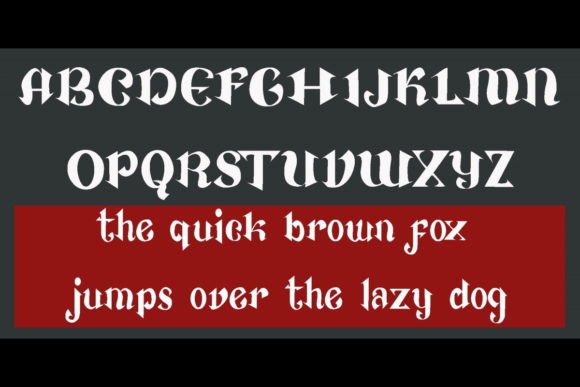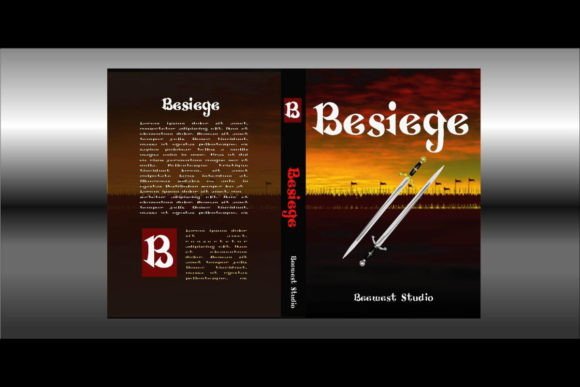
Introduction to Sheringham Font
Have you ever been working on a creative project, only to feel like something’s missing? That’s when I discovered the Sheringham Font – a game-changing design resource that instantly elevates any project to the next level. Whether you’re crafting a bespoke wedding invitation, designing a new brand identity, or simply adding a touch of elegance to a birthday card, this stunning black letter font is sure to impress.
As a designer, you know how crucial it is to have access to high-quality fonts that can help bring your vision to life. And with the Sheringham Font, you can rest assured that you’re getting a premium design resource that’s free to download and versatile enough to suit any creative project. From book cover titles to labels and more, this modern font is the perfect addition to your design arsenal.
With its bold, classic style and transparent background, the Sheringham Font is a valuable asset for any designer looking to add a touch of sophistication to their work. And the best part? It’s available for free download, making it an accessible design resource for creatives of all levels.
- Unique characteristics include elegant and sophisticated letterforms, making it ideal for luxury branding and high-end design.
Honest Review: Sheringham Font
I recently stumbled upon the Sheringham Font while searching for high quality design resources. As a designer, I’m always on the lookout for unique and versatile fonts that can elevate my creative projects. Sheringham Font did not disappoint.
Here are some of the things that work well with the Sheringham Font: ✨
- High-quality design: The font has a beautiful, intricate design that looks great on both screen and print.
- Transparent background: The font has a transparent background, making it easy to use in creative projects with complex backgrounds.
- Unique style: The Sheringham Font has a unique, hand-drawn style that sets it apart from more generic fonts.
While the Sheringham Font is a great resource, there are a few limitations to be aware of: ⚠️
- Limited font styles: The font only comes in a few styles, which may not be enough for designers who need a wide range of options.
- Not suitable for body text: The font is best used for headings and titles, as its intricate design can make it difficult to read in large blocks of text.
Overall, I’m impressed with the Sheringham Font and would definitely recommend it to designers and artists looking for a unique and high-quality design resource.
The Sheringham Font is ideal for use in a variety of creative projects, including brochures, flyers, and business cards. It is also suitable for use in digital designs, such as websites and social media graphics.
Alternatives to Sheringham Font
Fontin is a high-quality, elegant font ideal for creative projects requiring a sophisticated touch. It’s available for free download and features a transparent background, making it perfect for designs that demand a clean and minimalist look.
Fontin compares to Sheringham Font in terms of its refined and modern aesthetic, but it has a more slender and refined feel, making it suitable for projects that need a touch of sophistication.